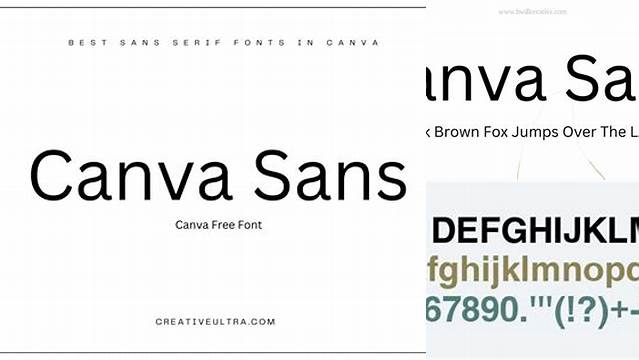
Free Canva Sans Alternatives: Fonts You'll Love
Are you on the hunt for free fonts similar to Canva Sans? You've landed in the right place! Finding the perfect font can be a game-changer for your designs. It's the unsung hero that communicates your message, sets the tone, and grabs your audience's attention. But, let's be honest, sometimes you don't want to shell out big bucks, especially when you're just starting out or working on a personal project. That's where the world of free, similar fonts comes in! We're going to explore some fantastic alternatives that capture the essence of Canva Sans – its clean lines, readability, and modern aesthetic – all without costing you a penny. These fonts are perfect for everything from crafting social media graphics to sprucing up your website or even designing a sleek presentation. So, buckle up, font enthusiasts! We're about to embark on a journey to discover some of the best free fonts that mimic the stylish vibe of Canva Sans. Get ready to level up your design game without breaking the bank. Let's dive in and uncover some amazing typographic treasures!
Why Canva Sans is a Design Darling
Before we jump into the look-alikes, let's talk about why Canva Sans is so popular, yeah? This font is a modern, clean sans-serif that's super versatile. It's got a friendly, approachable vibe that works wonders for all sorts of design projects. It's easy to read, which is crucial, especially for body text, and it exudes a professional yet approachable feel. Canva Sans is often used for headings, subheadings, and body text, making it a workhorse for a variety of design needs. It's clean and simple, which means it doesn't distract from the content. This makes it perfect for a wide range of applications, including website design, social media posts, presentations, and even printed materials. The font's neutrality also allows it to pair well with other fonts, giving designers plenty of flexibility. Its widespread use in Canva's templates has further solidified its place as a go-to font for creators of all skill levels. Its popularity is a testament to its adaptability and its ability to look good in almost any context. Its clean, simple appearance makes it a great choice for beginners and professionals. In a world of overly complex fonts, Canva Sans provides a breath of fresh air with its straightforward design. It’s easy on the eyes and conveys a sense of clarity and sophistication. It's a safe choice, but it's also stylish! It's a font that is both useful and elegant, which makes it a popular choice. So, when we seek out free fonts similar to Canva Sans, we are looking for these key characteristics, aiming to achieve a similar balance of approachability, readability, and modern aesthetic.
Its clean and simple lines, a modern aesthetic, and high readability are the qualities that make it a design darling.
Top Free Fonts That Mirror Canva Sans
Okay, guys, let's get down to the good stuff: the fonts! Here are some fantastic free alternatives that capture the spirit of Canva Sans. I’ve done my best to make sure you find fonts that give off a similar vibe, so you can create stunning visuals without having to spend a dime. Each of these fonts has its unique charm, but all share the essential qualities of being readable, versatile, and modern. They are suitable for a wide range of design tasks, so you can easily get the look you want. From headings to body text, these fonts will serve you well. Remember, the best font for you will depend on the specific project you're working on. I encourage you to try out a few and see which one resonates with your design vision. With these free alternatives, you can enhance your designs and create beautiful content without worrying about licensing fees or subscription costs. So, let's explore some of the options, shall we? Here is the list of free fonts similar to Canva Sans.
- Lato: This is a very popular sans-serif font, and for good reason! Lato is super clean, friendly, and versatile. Designed by Łukasz Dziedzic, it has a balanced structure that makes it highly readable, which is great for both headings and body text. It comes in a variety of weights and styles, which means you have lots of options to play with in your designs. It has a warmth that makes it easy on the eyes, making it a top pick for digital and print materials. It's not just similar to Canva Sans in terms of style, but also in its wide availability and overall usability. It's a solid choice for almost any design project. You can easily download it from Google Fonts, making it accessible and free to use for commercial and personal projects.
- Open Sans: Another Google Fonts favorite! Open Sans is a humanist sans-serif font, meaning it has slightly more organic shapes than some of the other options. Designed by Steve Matteson, it’s highly readable, especially at smaller sizes. It has an open, friendly appearance that makes it suitable for a wide variety of applications. It's known for its excellent legibility, making it a great choice for long-form content. The font is super versatile, works well in both digital and print projects, and comes in a wide range of weights, making it easy to create visual hierarchy. Whether you need it for a website, a presentation, or a marketing flyer, Open Sans is a trusty choice.
- Montserrat: This is a geometric sans-serif inspired by the urban typography of the Montserrat neighborhood in Buenos Aires. Designed by Julieta Ulanovsky, Montserrat has a clean, modern feel with a touch of personality. It's a great option if you're looking for something that's both stylish and easy to read. It's another font with lots of different weights, so you can create various design styles, from bold headlines to softer body text. Montserrat is a bit more structured than Canva Sans, but it still has a friendly vibe. Its availability on Google Fonts makes it super easy to use in your designs. Its versatility and readability make it a great option for a wide range of projects.
- Poppins: Poppins is a geometric sans-serif that's known for its clean lines and excellent readability. It's another font that offers a wide range of weights, so you can create a variety of styles, from headings to body text. It’s designed by Indian Type Foundry and features a distinctive rounded “o” that adds a touch of character without being too distracting. It's an excellent choice for both digital and print designs, and it pairs well with other fonts. Poppins is available on Google Fonts and is free to use for both commercial and personal projects.
- Raleway: Raleway is a sophisticated sans-serif font with a slightly more elegant feel. Designed by Matt McInerney, Raleway is a great option if you want something that's both stylish and easy to read. It comes in multiple weights and styles, allowing for lots of creative freedom in your designs. It is suitable for both headings and body text. Its clean lines and modern aesthetic make it a good fit for various design projects, from website design to social media graphics.
Tips for Pairing Fonts
Now that you have some excellent free fonts similar to Canva Sans, let's talk about how to use them effectively. Font pairing is an art! Here are some quick tips to make your designs look professional and cohesive. When you're working on a design, think about how your fonts will interact with each other. Don't go overboard with the number of fonts you use. It’s often better to stick to just two or three fonts, or even one font with different weights and styles. This will ensure your design looks consistent and professional. Start with one font for your headings and another for your body text. Consider the personalities of the fonts you choose. Do they complement each other? Do they create the right mood for your message? Consider the readability of your font choices. You want to make sure your text is easy to read, especially when it comes to body text. Contrast is key! If you're using two fonts, ensure they're different enough to provide visual interest. This could be through the use of different weights, styles, or even a serif and a sans-serif. Choose a font pairing that complements the overall message of your design. A clean sans-serif font may be the right choice for a modern website, but a more playful font could be appropriate for a children's book. It’s also a good idea to test out your font pairings. Print out your designs and see how the fonts look on paper. This can help you identify any potential issues. Think about the contrast! You don't want the fonts to blend into each other. By following these simple rules, you'll be well on your way to creating effective and visually appealing designs.
Conclusion: Get Designing!